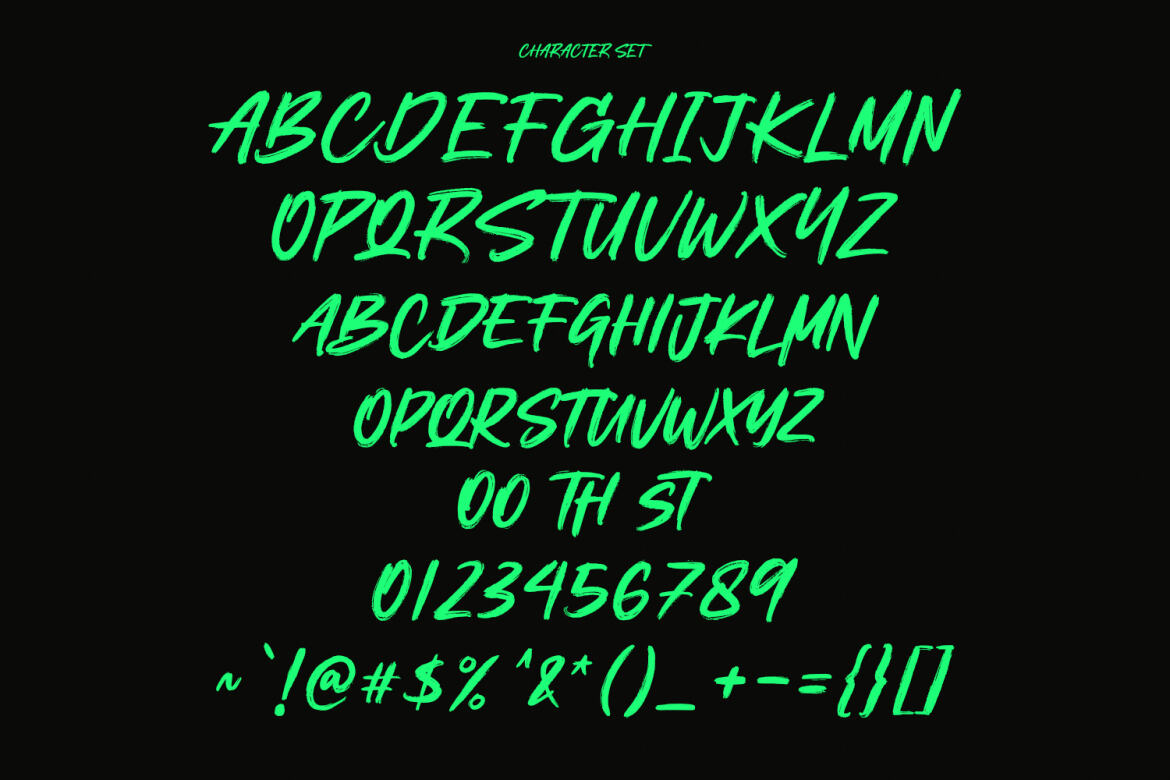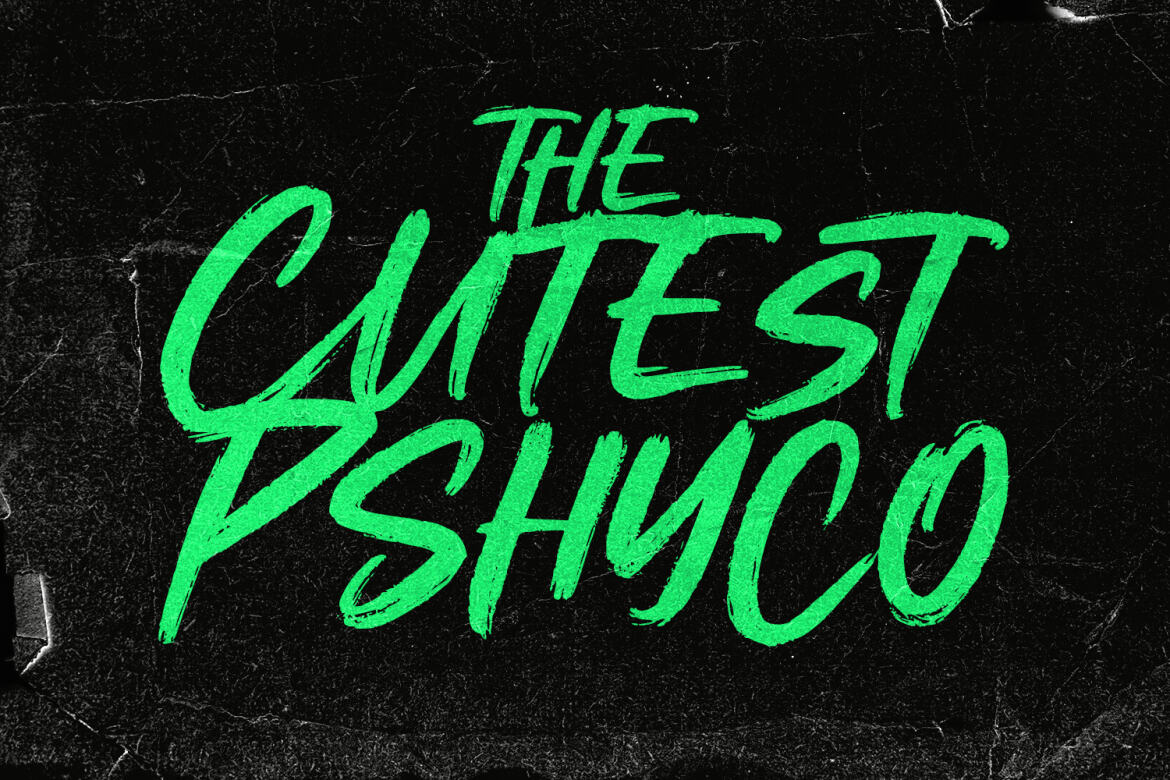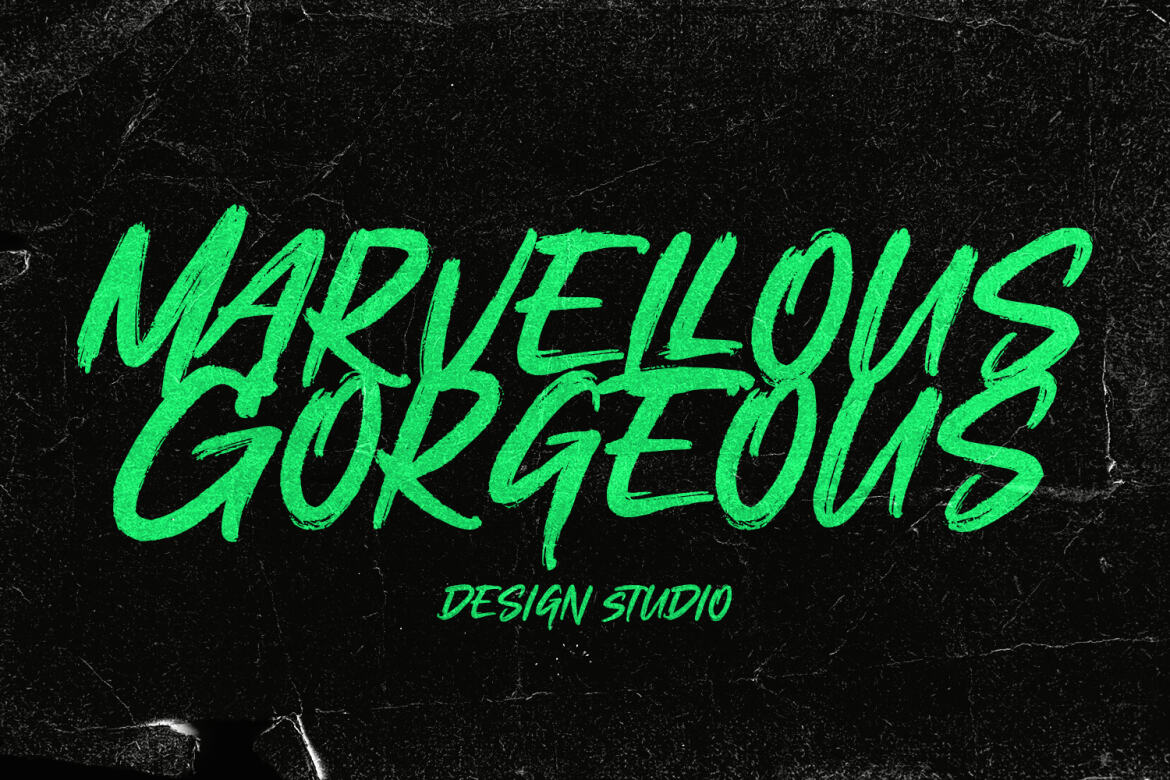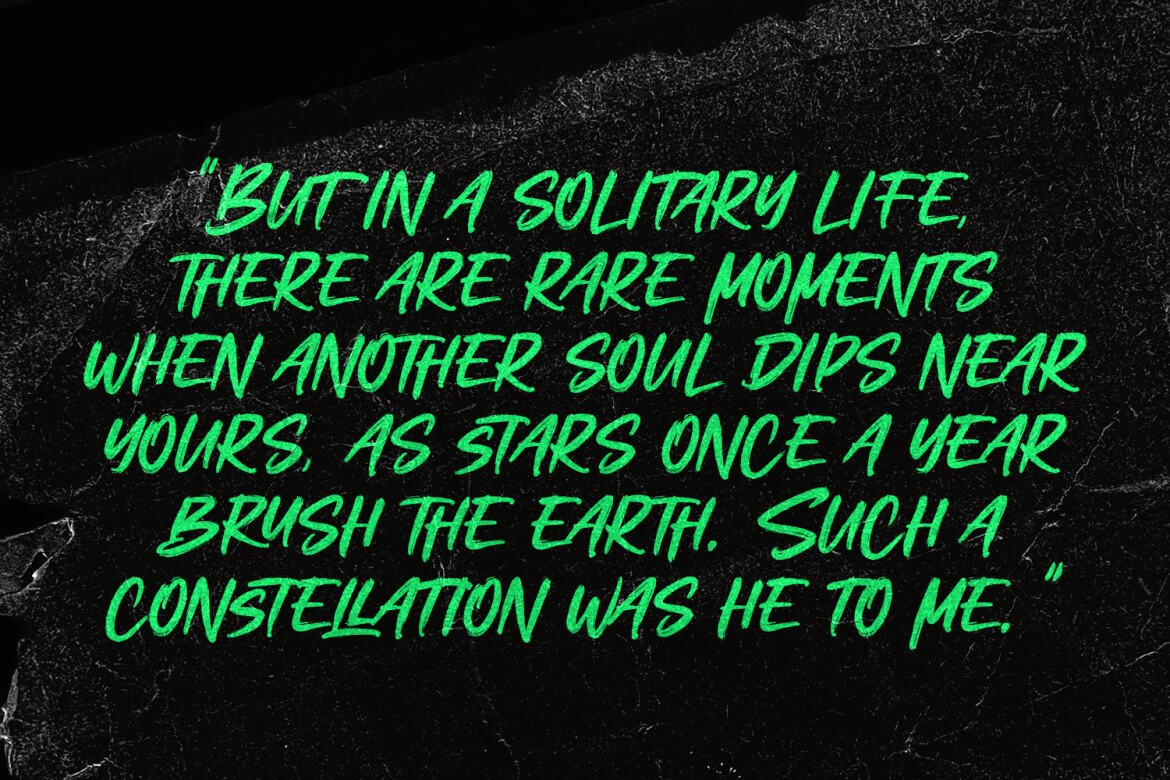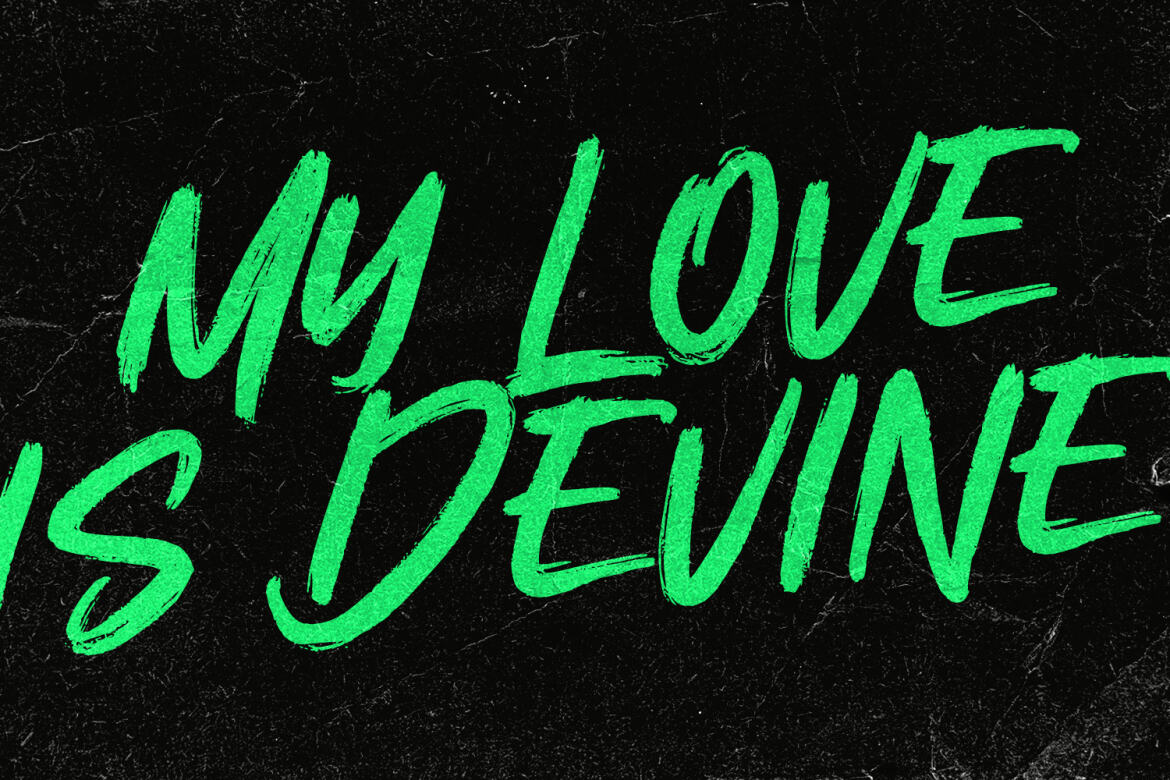
Bigteeth Handwritten Free Brush Font
Bigteeth
Bigteeth is a horror vibes handwritten font. With slanted medium rough brush stroke, fun character. To give you an extra creative work. Bigteeth font support multilingual more than 100+ language. This font is good for logo design, Social media, Movie Titles, Books Titles, a short text even a long text letter and good for your secondary text font with sans or serif. Make a stunning work with Bigteeth font.